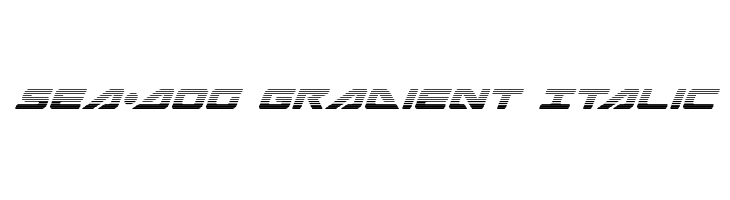
A decorative font with ballet-themed embellishments and elegant flourishes.
A bold, angular, graffiti-inspired font with a hand-drawn aesthetic.
A futuristic, gradient-striped italic font with a dynamic and modern appeal.
A bold, geometric font with a modern, industrial style.
A playful, italic font with a hand-drawn, whimsical style.
A bold, italicized font with strong, dynamic strokes and a commanding presence.
A bold, futuristic font with geometric shapes and rounded edges.
A sleek, modern italic font with consistent stroke width and elegant design.
A sleek, futuristic italic font with elongated, narrow characters.
设计师偏爱 LMS Nutcracker Ballet, Raw Delta Hand Street DEMO, Sea-Dog Gradient Italic, RaseGPL-Bold and CRU-Kanda-Italic V.2,因为其造型干净、适用范围广—— 从品牌识别到落地页、海报都能胜任。